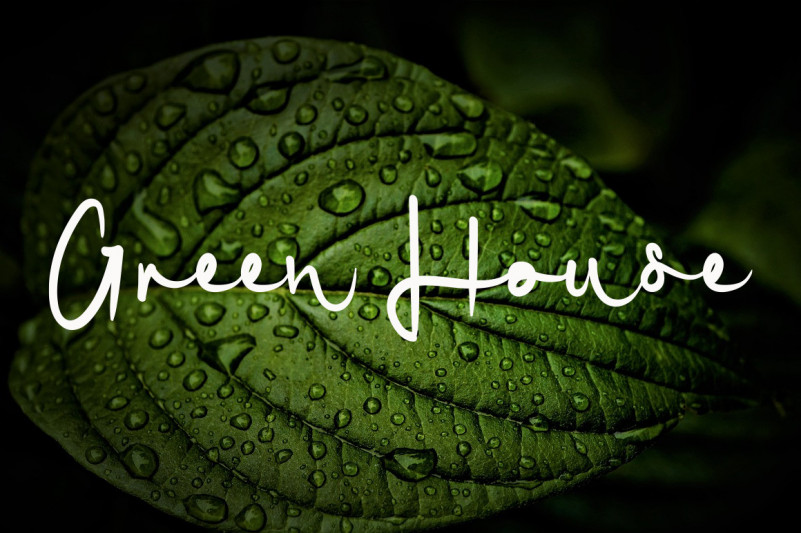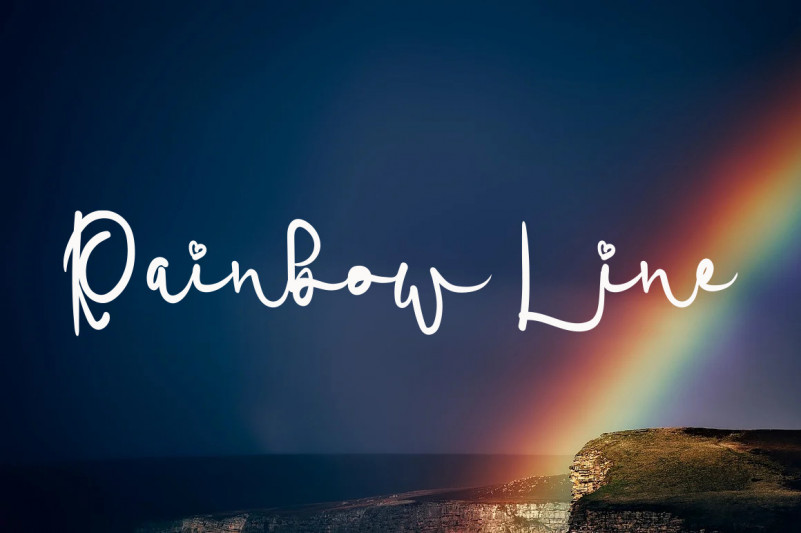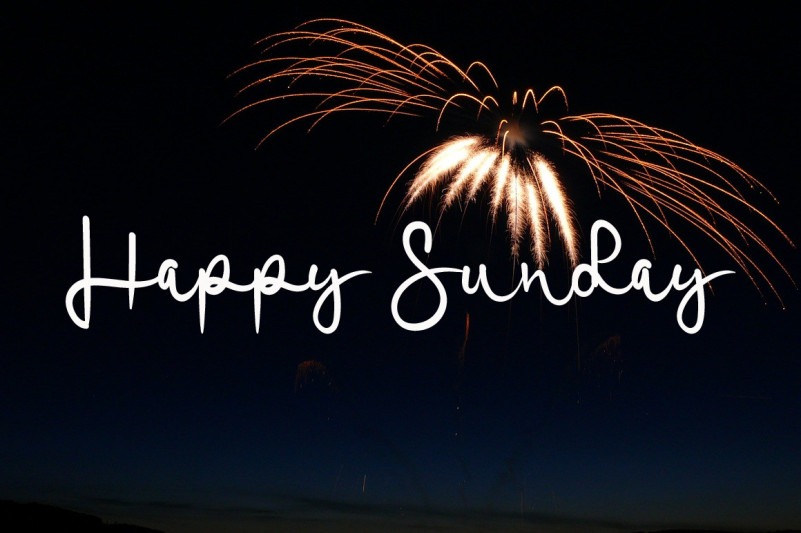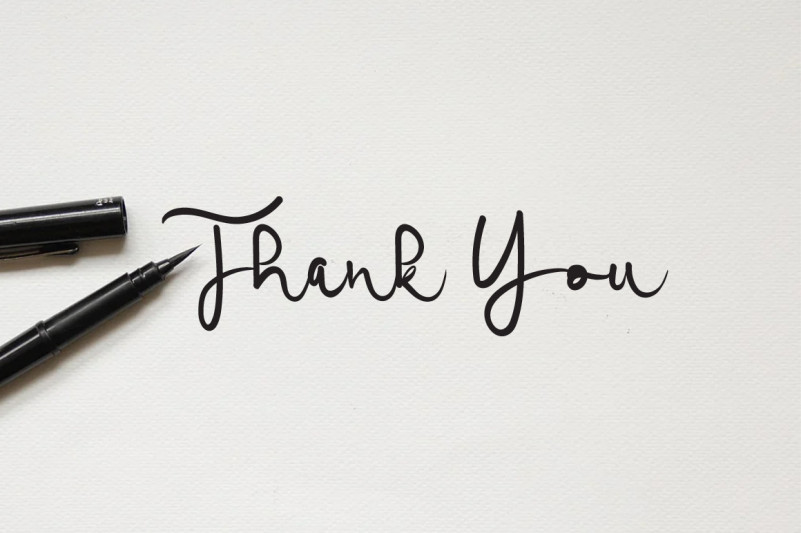
Signature Minimalis Font
Signature Minimalis Script Font
This is a somewhat bolder handwritten font. Its uniqueness makes this creative font extremely suitable for different, more impressive projects!